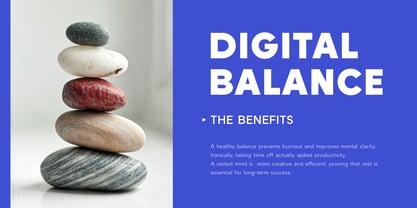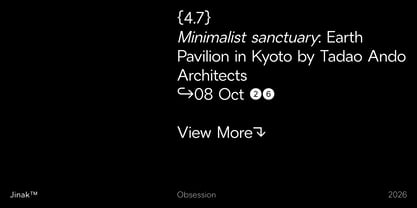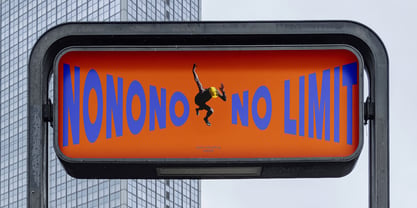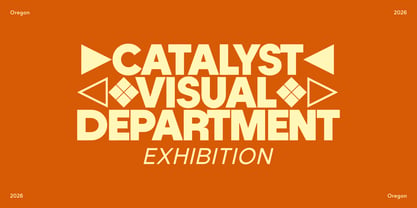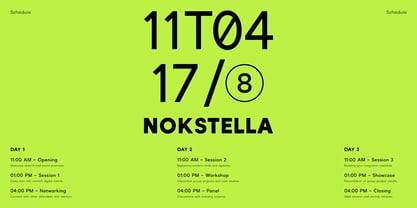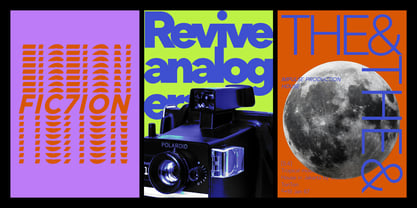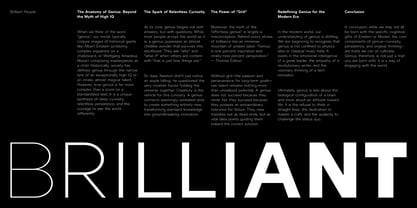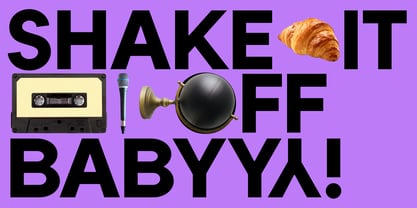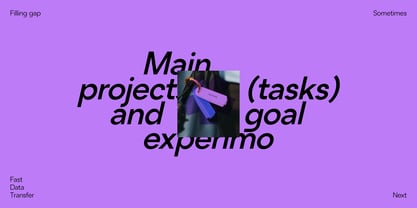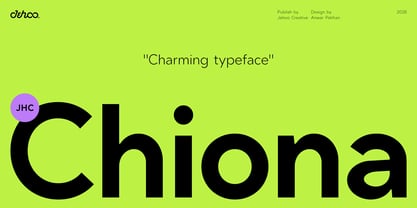
JHC Chiona
by Jehoo Creative
The JHC Chiona Font Family was designed by Anwar Patihan and published by Jehoo Creative. JHC Chiona contains 9 styles and family package options. More about this family
Introducing JHC Chiona, a modern sans-serif family that beautifully balances clean geometric structures with a soft, approachable personality. Designed to feel both calm and charming, JHC Chiona brings a breath of fresh air to typography, making your designs feel welcoming without losing professional polish.
This typeface offers an exceptionally complete weight range, giving you ultimate creative control over your typography. The family spans across nine distinct weights from a delicate Thin to a powerful Black, with each weight accompanied by a perfectly coordinated italic. This expansive variety allows JHC Chiona to seamlessly shift its personality based on your needs, transforming from a whimsical, clean font for modern UI/UX layouts. To elevate its versatility even further, the font comes packed with OpenType features, including Character Variants (C, S, c, s) and Stylistic Alternates (R, y, g) allowing you to customize specific letterforms and add a unique, tailored touch to your layouts. Beyond its versatility, every single style is engineered with excellent legibility in mind, ensuring your text remains highly readable across both digital screens and print media.
Best Used For:
Branding and visual identity, packaging design, social media graphics, editorial layouts, and website. Bring a touch of calm, versatile charm to your font library with JHC Chiona today!
Designers: Anwar Patihan
Foundry: Jehoo Creative